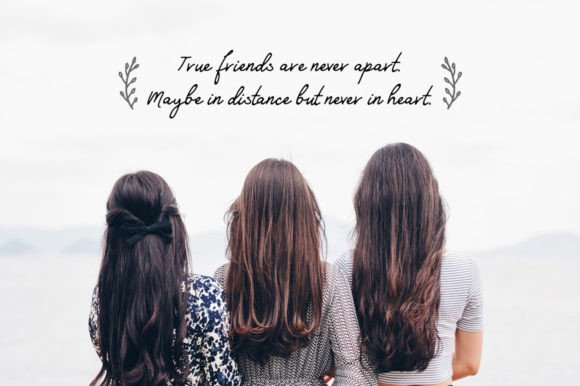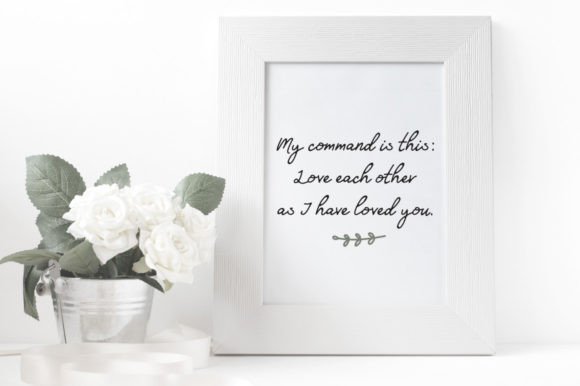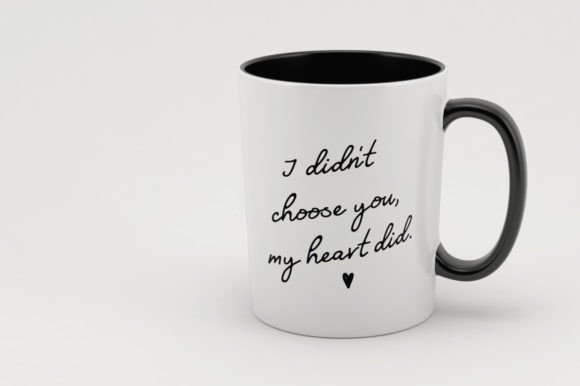
Introduction to Friends Forever Font
Who hasn’t spent hours scrolling through social media, feeling inspired by a beautiful quote or a perfectly designed logo? For designers and creatives, those moments are what fuel our passion and drive us to create something new and beautiful. Recently, I stumbled upon the perfect addition to my design arsenal: the Friends Forever Font.
This imperfect girly script font is a treasure trove of creative possibilities, especially when paired with the extra floral elements font. The result is a stunning combination that’s perfect for creating pretty logos and designs that exude warmth and personality. With its unique, unfinished style, the Friends Forever Font is a valuable resource for designers looking to add a touch of whimsy and charm to their creative projects.
Whether you’re working on a greeting card, a t-shirt design, or a social media post, the Friends Forever Font is a must-have design resource that’s sure to elevate your work. And the best part? It’s a free download, available in high quality with all uppercase and lowercase characters, numbers, and punctuation, making it easy to use on any project.
Key Features of Friends Forever Font
- High-quality design resource for creative projects, ideal for use in digital art, graphics, and illustrations.
- Designed with a clean and modern aesthetic, making it suitable for a wide range of creative projects, from logos to posters.
- Unique characteristics include a friendly and approachable tone, making it perfect for branding and marketing materials.
Honest Review: Friends Forever Font
I recently stumbled upon the Friends Forever Font, and I must say it’s a great addition to any design resource library. As a designer, I appreciate the creativity that goes into crafting unique fonts like this one.
What works well about this font is its playful, cursive design that’s perfect for creative projects like greeting cards, invitations, or social media graphics. The high-quality design is clear and easy to read, making it a great choice for any project where you want to add a personal touch. Plus, the fact that it’s a free download is a huge bonus – no need to worry about breaking the bank!
Some of the key features that I love about the Friends Forever Font include:
- Unique, hand-drawn design that adds a personal touch to any project
- High-quality, transparent background that makes it easy to layer over images or text
My only concern is that the font may not be suitable for all types of projects – it’s quite playful and may not be the best choice for corporate or formal designs. ⚠️ However, for creative projects or personal designs, it’s a great choice.
Overall, I’m really impressed with the Friends Forever Font, and I think it’s a great addition to any design resource library. It’s a fun, creative font that’s perfect for adding a personal touch to your designs. ✨
Tips for Getting the Most Out of Friends Forever Font
To achieve the best results, use the Friends Forever Font with a transparent background, allowing the text to stand out against any design. Experiment with different font sizes and colors to match your creative project’s style.
The Friends Forever Font is ideal for various creative projects, such as:
- Invitations and event planning materials
- Personalized gifts and merchandise
- Social media graphics and content